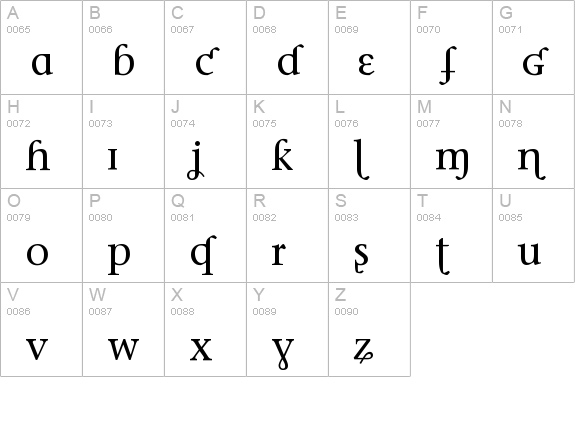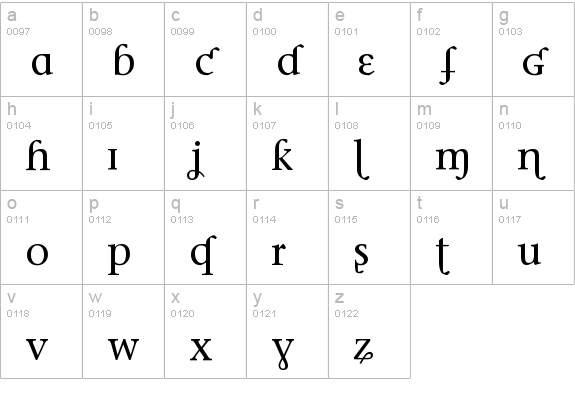
Phonetica Font Details
Introducing Phonetica, a stunning and versatile font that is sure to make a lasting impression. With its sleek and modern design, Phonetica is perfect for a wide range of creative projects, from branding and advertising to social media graphics and website designs. But what sets Phonetica apart from other fonts is that it is not only visually captivating, but also free! That's right, this incredible font is freely available to download at FontsMarket.com. Whether you're a professional designer or a creative enthusiast, Phonetica offers you the opportunity to add a touch of elegance and sophistication to your work without breaking the bank. Phonetica's clean lines and balanced proportions make it incredibly easy to read, ensuring that your message is communicated clearly and effectively. Its timeless design also means that it will never go out of style, making it a reliable choice for any project, no matter the trend or era. Furthermore, Phonetica's extensive character set includes a wide range of symbols and special characters, allowing you to add that extra touch of creativity and uniqueness to your designs. From elegant logos to eye-catching headlines, this font has got you covered. Whether you're working on a personal project or a client's assignment, Phonetica is a font that you can rely on. Its versatility and aesthetic appeal make it the perfect choice for any design endeavor. And with its free availability at FontsMarket.com, there's no reason not to give it a try. So why wait? Download Phonetica today and unlock the potential to create stunning and impactful designs. Let your creativity shine with this remarkable font, and take your projects to new heights. Phonetica – where elegance meets affordability.